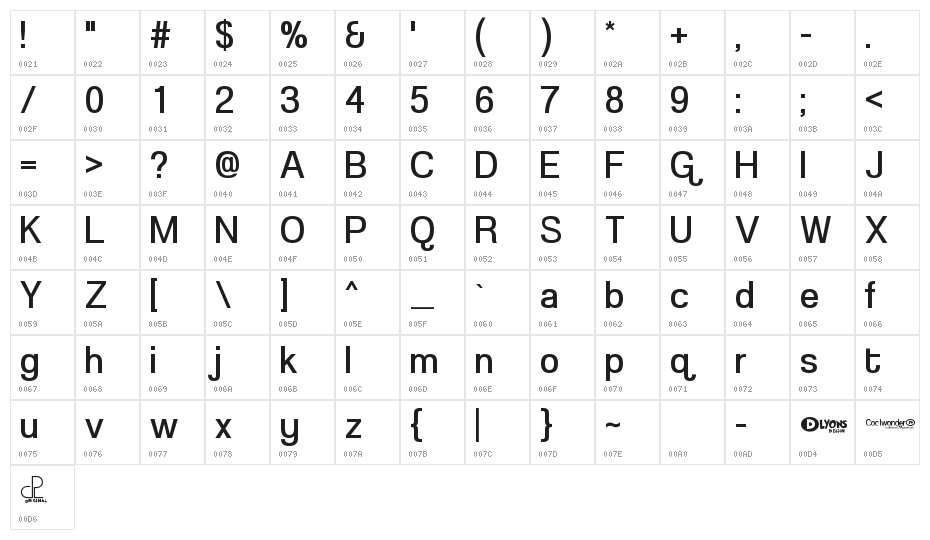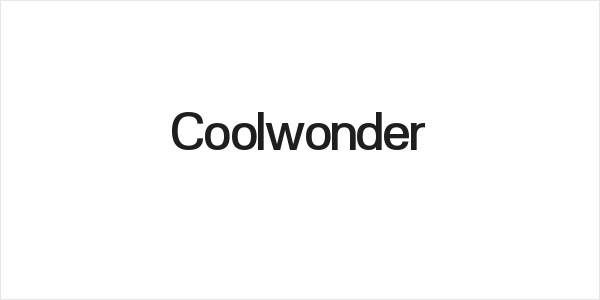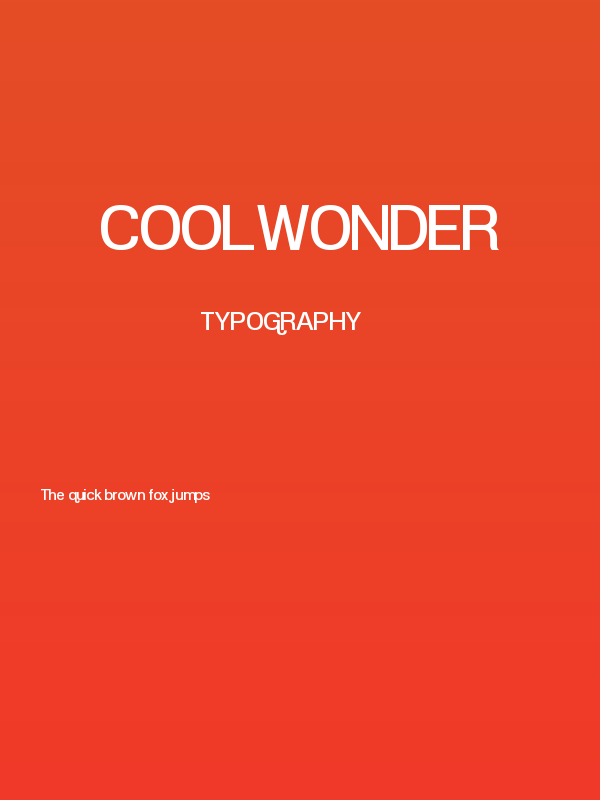
This font exhibits a clean and modern sans-serif style, characterized by its bold and uniform stroke width. The characters are well-proportioned, with a geometric influence that gives a sense of stability and clarity. The uppercase letters are tall and commanding, while the lowercase letters maintain a consistent height, enhancing readability. The numerals are straightforward and align well with the overall design, making them suitable for both digital and print media. Special characters are distinct and harmonize with the alphabetic characters, ensuring versatility in various applications.
| Use Case | Headlines, Logos, Digital Interfaces |
| Proposed Projects | Ideal for branding, advertising, digital interfaces, and editorial design due to its clarity and modern appeal. |